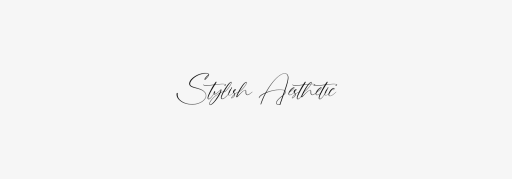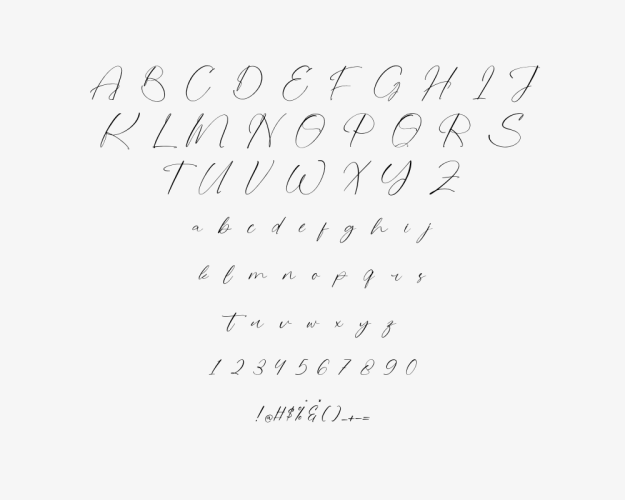
Stylish Aesthetic Font
Stylish Aesthetic is a clean handwritten font with elegant style. Moreover, Heru Utama Putra designed it for Stylishtype Studio. Additionally, the font has smooth curves and natural flow. The letters connect well and look like real handwriting. Therefore, it adds a personal touch to any project.
This font works great for wedding invitations and logos. Furthermore, you can use it for product labels and social media posts. The font comes with two styles: regular and italic. Consequently, designers love it for beauty brands and small shops. As a result, your designs get a fresh and friendly look.
Stylish Aesthetic Font brings a personal, handwritten warmth to invitations, menus and place cards.
Craft brands — coffee, cosmetics, bakery — use scripts like Stylish Aesthetic Font for signature-style logos and labels.
Pair Stylish Aesthetic Font with a plain sans for quotes, stories and Pinterest pins that feel handmade.
Stylish Aesthetic Font is a Script And Handwritten typeface tagged Branding, Clean, Elegant, Friendly. It works well for headlines, logos, posters, social media graphics and branding projects that need a distinctive script and handwritten look.